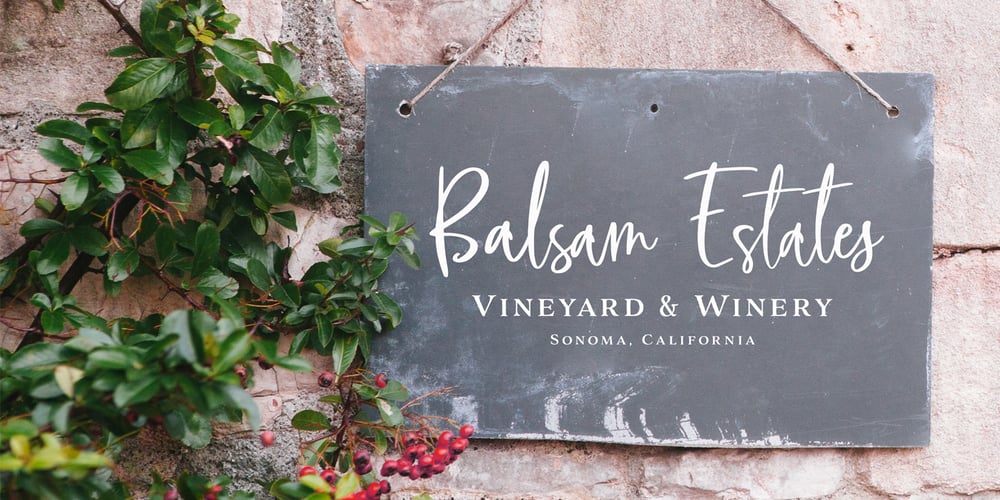
Blush And Bloom Font Family was designed by Callie Hegstrom and published by Make Media Co. Blush And Bloom contains 1 styles and family package options. Introducing Blush & Bloom, a smooth, elegant typeface with 80 ligatures and alternates for an authentic hand-written feel. Blush & Bloom looks gorgeous on business cards, envelopes, logos, signage, greeting cards, wedding materials and packaging. And works beautifully with Cricut & Silhouette machines!